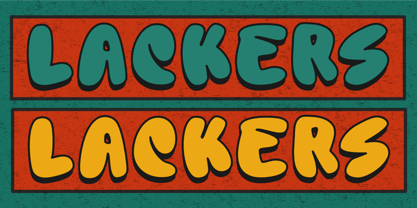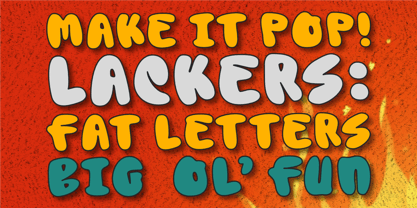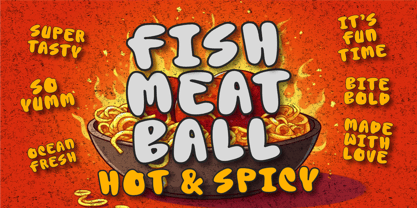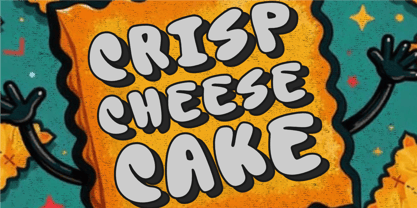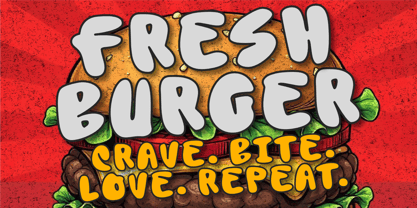
Lackers
by Epiclinez
The Lackers Font Family was designed by Aldy Sidik and published by Epiclinez. Lackers contains 1 styles. More about this family
Lackers is a loud and proud display font that brings bold energy and playful charm to every project. Designed with thick strokes, rounded curves, and a friendly attitude, this fat font is perfect for eye-catching headlines, poster designs, kid-friendly branding, and anything that needs a fun, expressive typeface.
Lackers delivers maximum impact with minimal effort, whether you're working on a logo design, social media graphics, YouTube thumbnails, product packaging, or cartoon titles. Its chunky, cheerful character makes it ideal for both digital and print projects that aim to entertain, delight, or stand out in a crowd.
Lackers is not just a font—it’s a design snack perfect for food packaging, snack branding, restaurant menus, and street food posters. Its thick, happy letters evoke a sense of flavorful fun, making it an ideal food font for projects related to burgers, cookies, donuts, ice cream, fast food, and more. Whether you're crafting playful marketing materials, cute cafe signage, or colorful kids' meal designs, Lackers adds a yummy, vibrant touch that feels fresh, friendly, and full of life. With its versatility and high legibility, it's a go-to choice for designers seeking a bold, happy typeface that’s bursting with personality and optimized for both print and screen.
Designers: Aldy Sidik
Foundry: Epiclinez